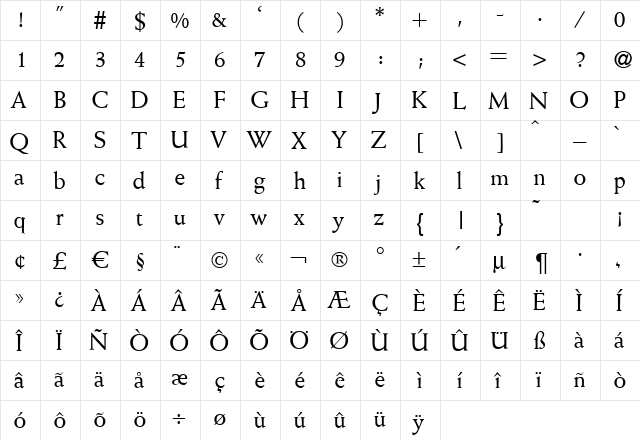
W690-Roman Regular Font Preview
W690-Roman Regular
Design Context for W690-Roman Typeface
W690-Roman offers clean, dependable letterforms without strong stylistic allegiance, making it a practical choice for designers who need flexibility.